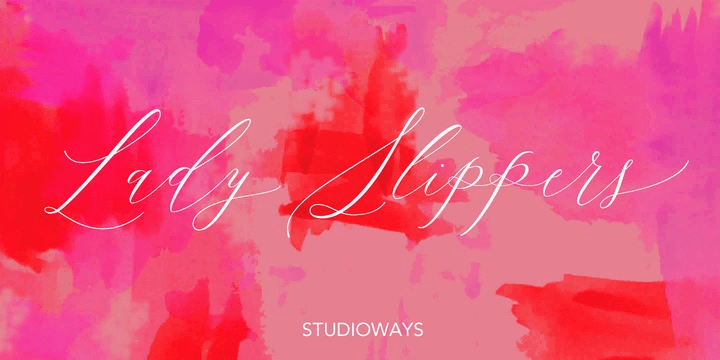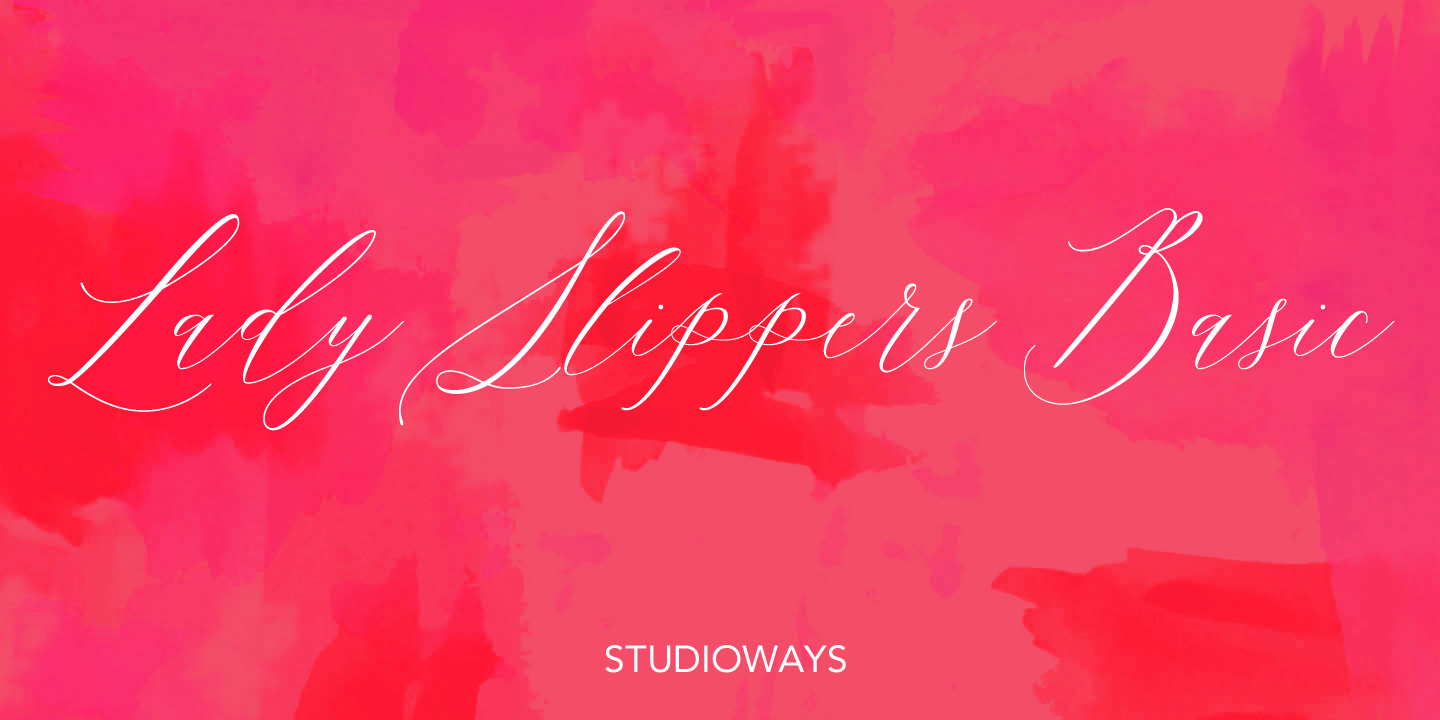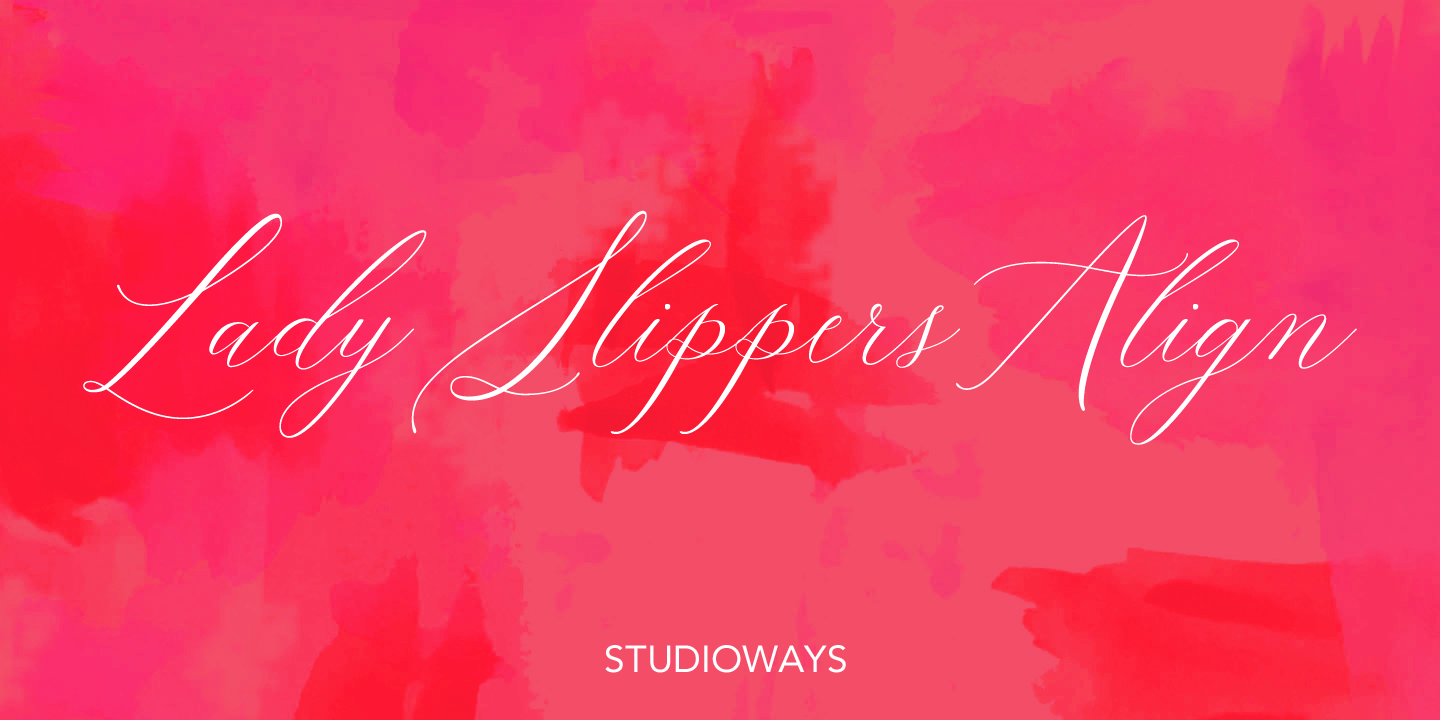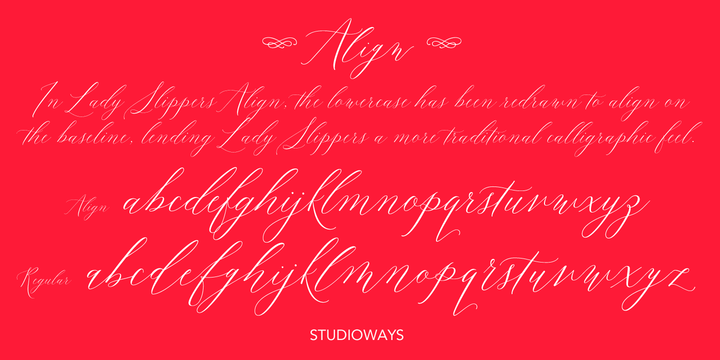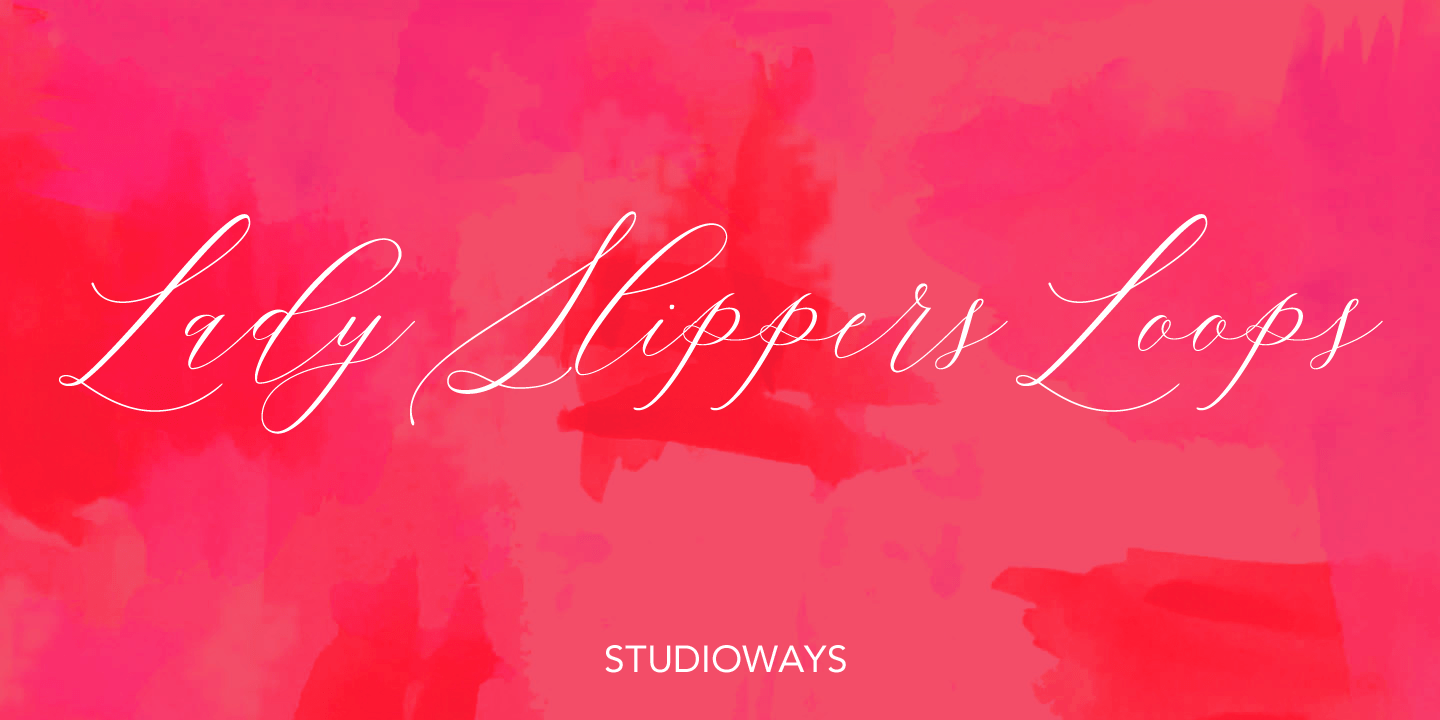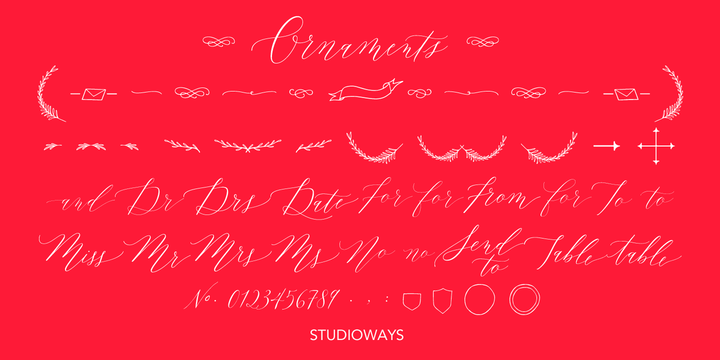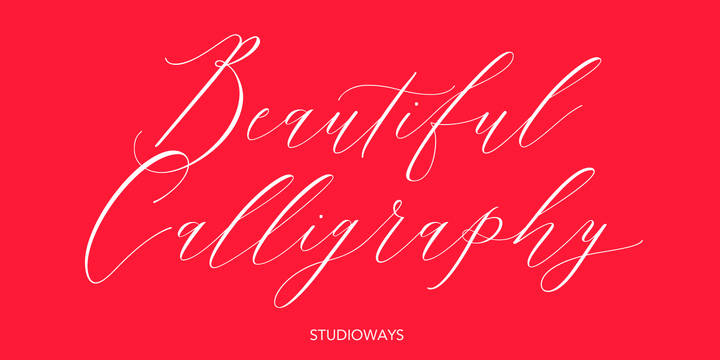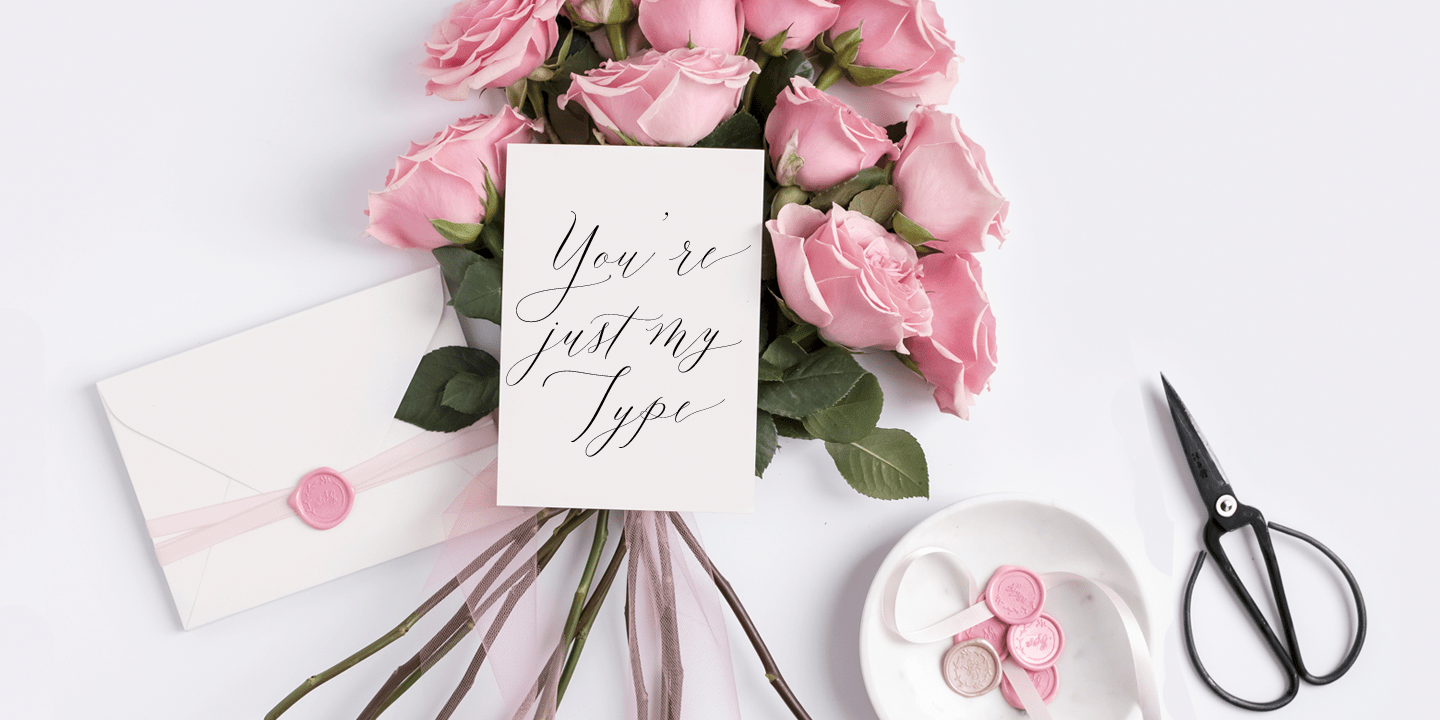
Lady Slippers Family Pack
This Lady Slippers Family Pack includes the three toned down versions Lady Slippers. They are Lady Slippers Basic, Lady Slippers Loops, and Lady Slippers Align. Each one still a beautiful and delicate handwritten script typeface. These versions are meant for users who don't require all of OpenType goodies. Lady Slippers Basic is a simplified version without all the bells and whistles. Lady Slippers Loops, sports redrawn ascenders and descenders with gorgeous wide open loops. Lady Slippers Align has a redrawn lowercase that aligns on the baseline, giving it a more traditional calligraphic appeal. Each of these fonts support some basic OT features, like fractions, superiors, and ordinals.
Finally, to round out the Family Pack, we include Lady Slippers Ornaments. Designed as a companion for any of the fonts in the Lady Slippers family, or used by itself, Lady Slippers Ornaments contains decorative ornaments, crests and other hand drawn elements, as well as a set of figures, minimal punctuation, and some catchwords useful for invitations and bridal pieces. All glyphs are accessible from any standard keyboard.